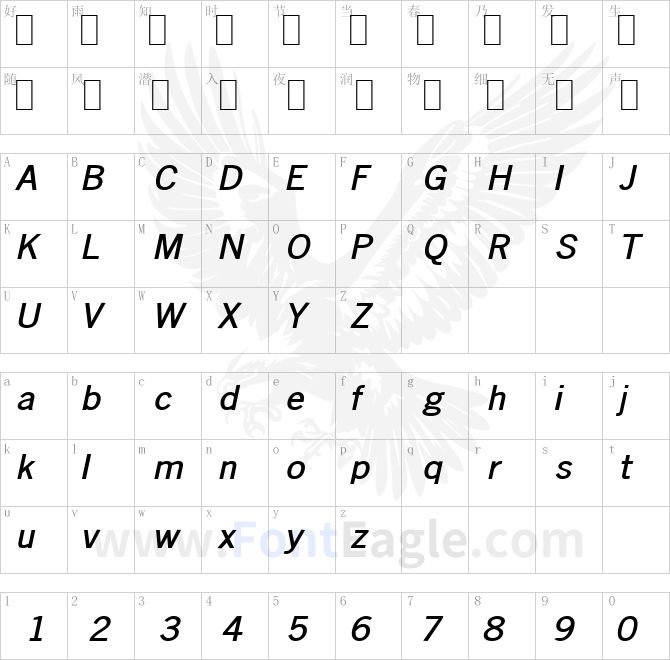
Matterhorn-Extended-Bold-Italic is a great font, widely used in graphic design, single-page menu design, poster design and other fields, and is deeply loved by designers.Matterhorn-Extended-Bold-Italic download.